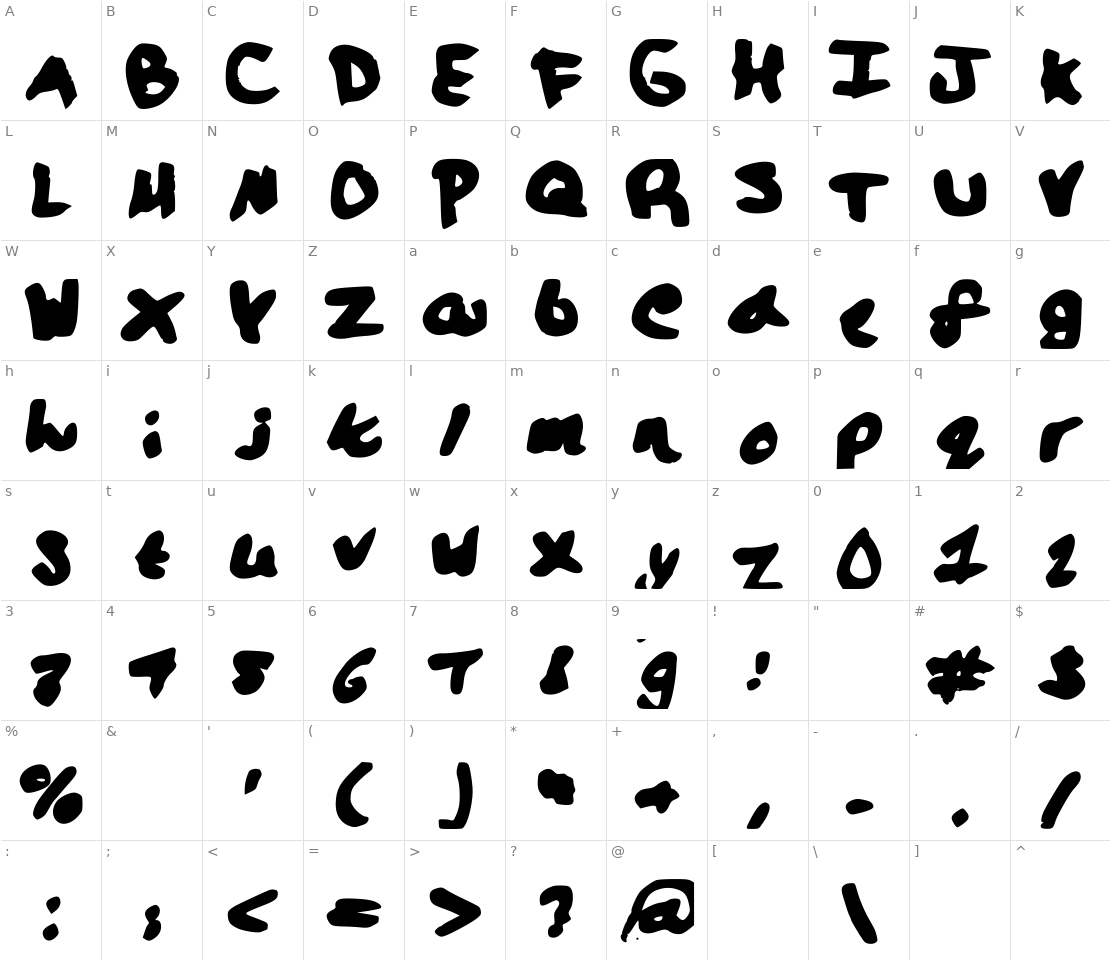
Lalaland
by Crystal Cowhig
Lalaland is a thick, blobby display face from Crystal Cowhig where every letter looks like it was squeezed out of a tube. The rounded, organic shapes have a playful, almost gooey quality that refuses to sit still or behave, giving headlines and titles a sense of cheerful absurdity. Best kept big, where its quirky heaviness can do the talking.